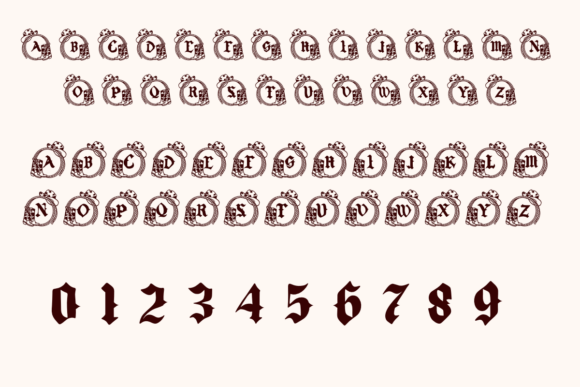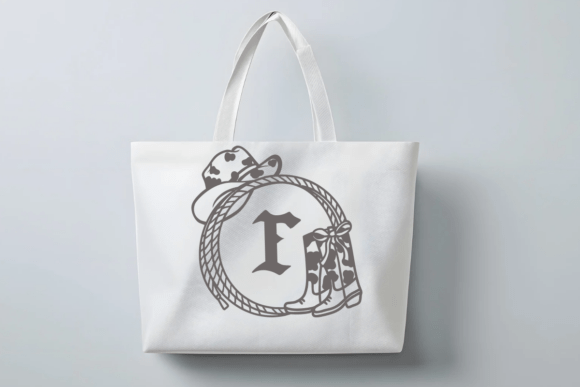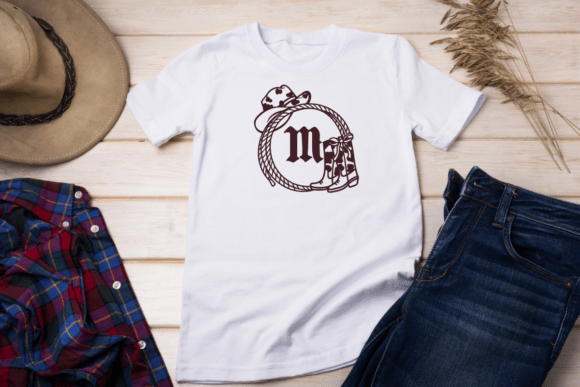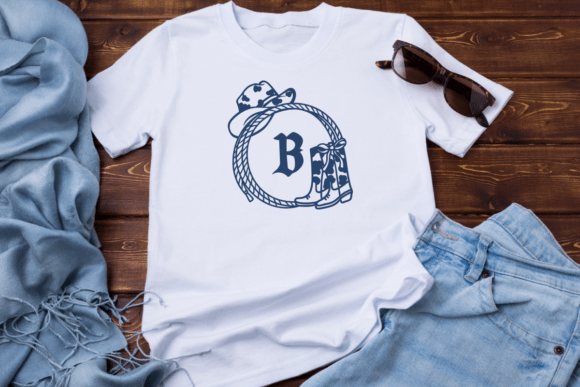
Cowgirl Frame Font: A Unique Western-Style Decorative Font
Are you looking for a font that can add a touch of wild west charm to your designs? Look no further than the Cowgirl Frame Font. This unique western-style decorative font is perfect for designers and crafters who want to create standout titles, themed party invites, western merchandise, or rustic branding.
A Blend of Vintage Rodeo Aesthetics and Gothic Charm
The Cowgirl Frame Font is a beautiful blend of vintage rodeo aesthetics and gothic charm. Each character is carefully crafted to resemble a rope circle, adorned with a cow-print cowboy hat. This distinctive design element gives the font a bold and eye-catching appearance that’s sure to grab attention.
Perfect for Standout Titles and Themed Party Invites
The Cowgirl Frame Font is perfect for creating standout titles and themed party invites. Whether you’re designing a poster for a rodeo event or a birthday party invitation for a cowboy-themed celebration, this font is sure to make your design stand out. The bold, blackletter-inspired letterforms and charming cowboy motifs make it a great choice for creating eye-catching headlines and titles.
Western Merchandise and Rustic Branding
In addition to its use in digital designs, the Cowgirl Frame Font is also perfect for creating western merchandise and rustic branding. Whether you’re designing a logo for a western-themed business or creating promotional materials for a rodeo event, this font is sure to add a touch of authenticity and charm to your designs.
Design Elements and Features
The Cowgirl Frame Font features a range of design elements that make it perfect for western-themed designs. Some of the key features of this font include:
- Bold, blackletter-inspired letterforms: The Cowgirl Frame Font features bold, blackletter-inspired letterforms that are perfect for creating eye-catching headlines and titles.
- Rope circle frames: Each character is framed in a rope circle, giving the font a distinctive and eye-catching appearance.
- Cow-print cowboy hats: The font features cow-print cowboy hats, adding a touch of whimsy and charm to each character.
- Western-themed design elements: The font includes a range of western-themed design elements, such as rope and cowboy hats, making it perfect for creating authentic western-themed designs.
Tips for Using the Cowgirl Frame Font
Here are a few tips for using the Cowgirl Frame Font in your designs:
- Use it sparingly: The Cowgirl Frame Font is a bold and eye-catching font, so it’s best to use it sparingly in your designs. Use it for headlines and titles, and pair it with a simpler font for body text.
- Pair it with complementary fonts: The Cowgirl Frame Font pairs well with a range of fonts, including serif and sans serif fonts. Experiment with different font combinations to find the perfect pairing for your design.
- Experiment with colors: The Cowgirl Frame Font looks great in a range of colors, from bold and bright to muted and earthy. Experiment with different colors to find the perfect look for your design.
The Cowgirl Frame Font is a unique and versatile font that’s perfect for designers and crafters who want to add a touch of wild west charm to their designs. With its bold, blackletter-inspired letterforms and charming cowboy motifs, this font is sure to make your designs stand out. Whether you’re creating standout titles, themed party invites, western merchandise, or rustic branding, the Cowgirl Frame Font is a great choice.
Get Creative with Cowgirl Frame Font
So why not get creative with the Cowgirl Frame Font? With its unique blend of vintage rodeo aesthetics and gothic charm, this font is sure to inspire your next design project. Whether you’re a seasoned designer or a crafty DIY enthusiast, the Cowgirl Frame Font is a great addition to your font library.